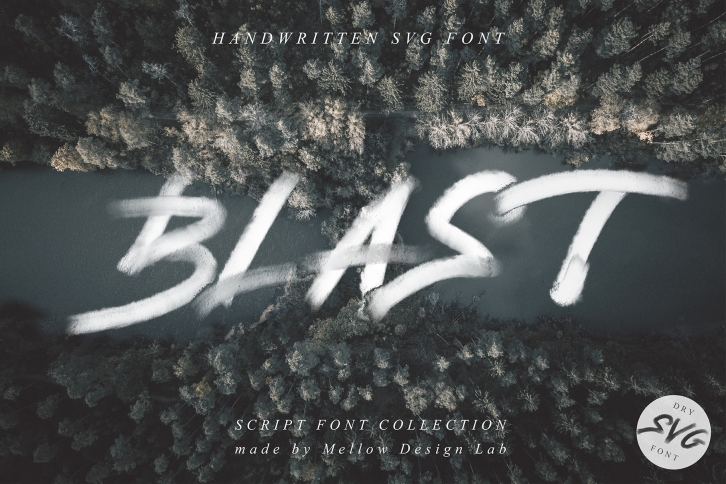
BLAST is a great font that was designed by Mellow Design Lab. Imagine the amount of combinations you can create using this font! The archive is 18.70 MB and it was released on October 4, 2018. BLAST looks beautiful on wedding invitations, greeting cards, logos, posters, labels, t-shirt designs, logos, business cards and is perfect for use in ink or watercolor works, fashion, magazines, packaging and food menus, children's books and more!